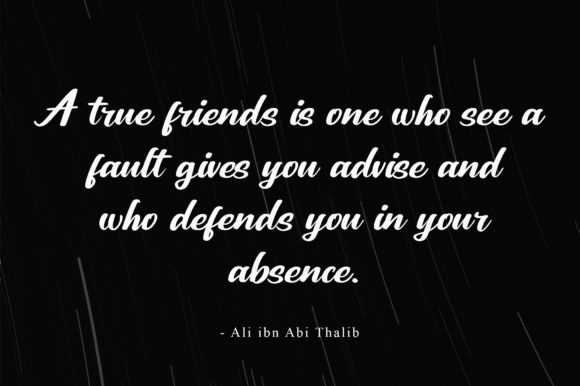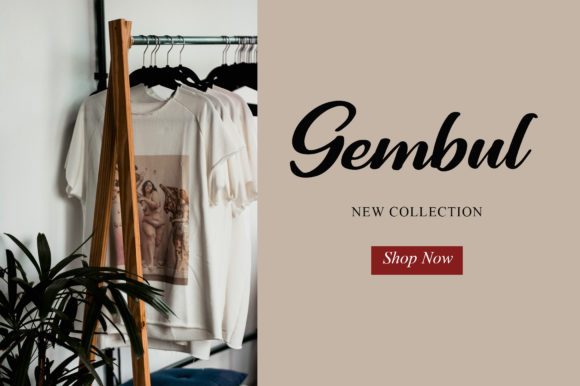
Shadow Box Font
db-ku.com - Script & Handwritten -- Shadow Box is a cursive and sweet calligraphy typeface with characters that dance along the baseline.